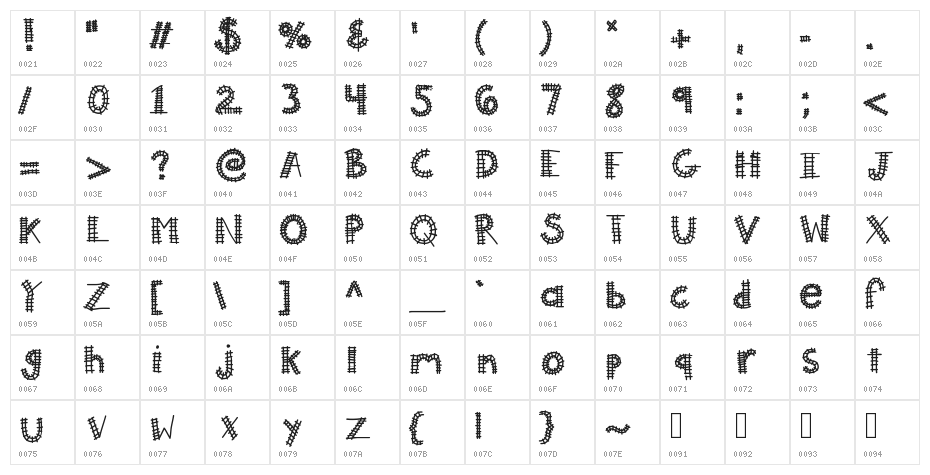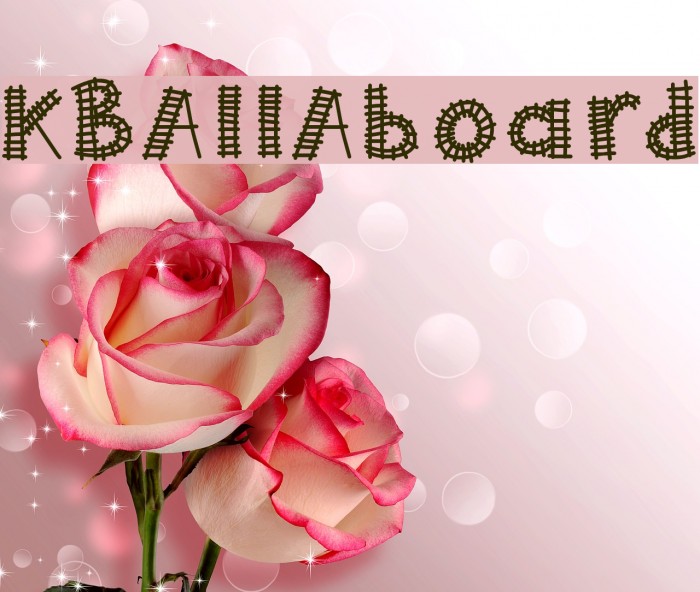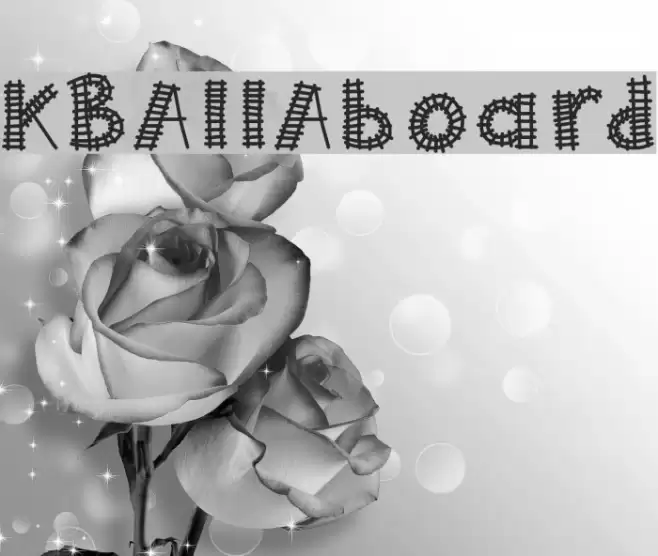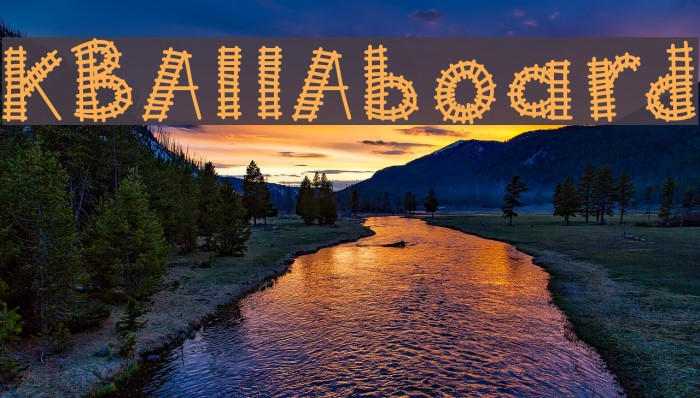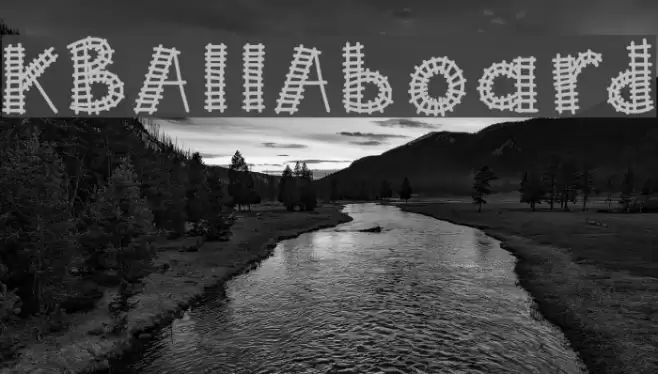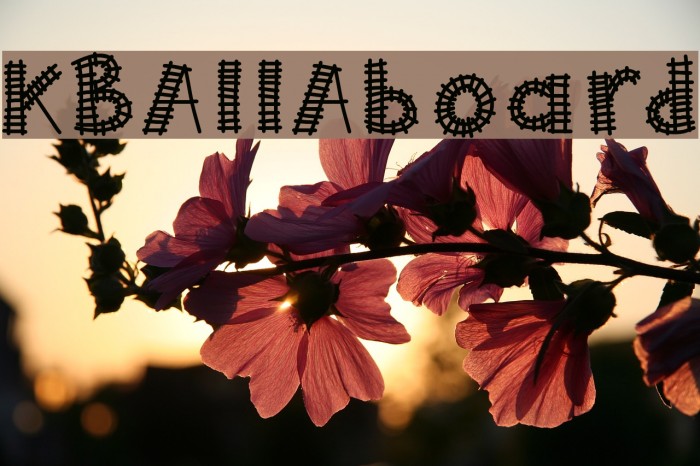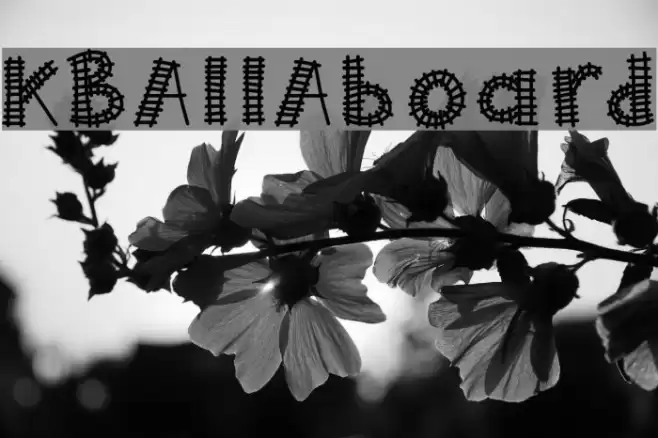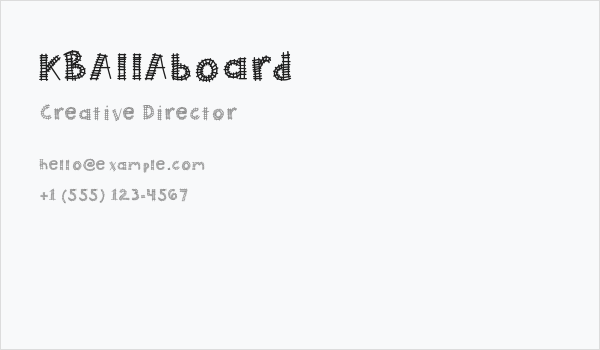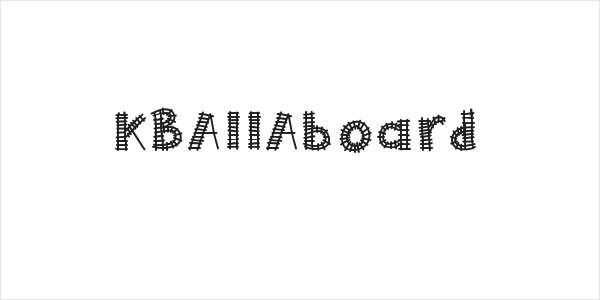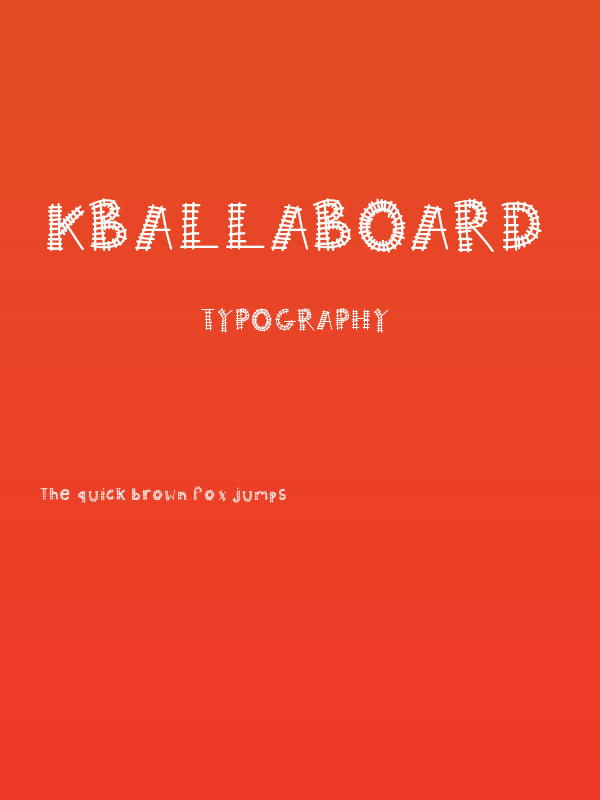
KBAllAboard Font
KBAllAboard Description
This unique and playful font is designed to resemble train tracks, with each character constructed from a series of intersecting lines that mimic the appearance of railway ties and rails. The font has a whimsical and decorative style, making it ideal for projects that require a fun and engaging visual element. The uppercase and lowercase letters maintain a consistent theme, with numbers and special characters also following the same design principle. The font's intricate detailing and novelty appeal make it a standout choice for creative applications.
| Use Case | Headlines, Logos, Themed Events |
| Proposed Projects | Ideal for children's books, themed party invitations, railway-themed events, and playful branding projects. |